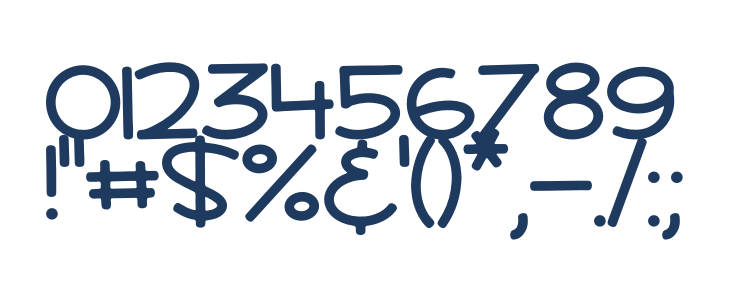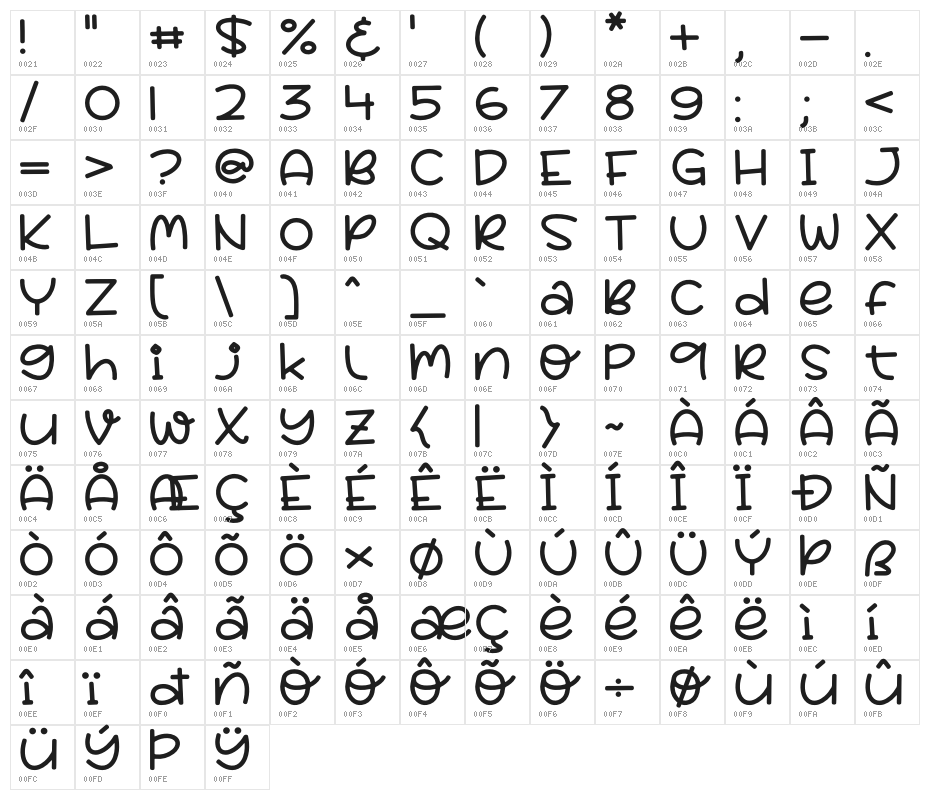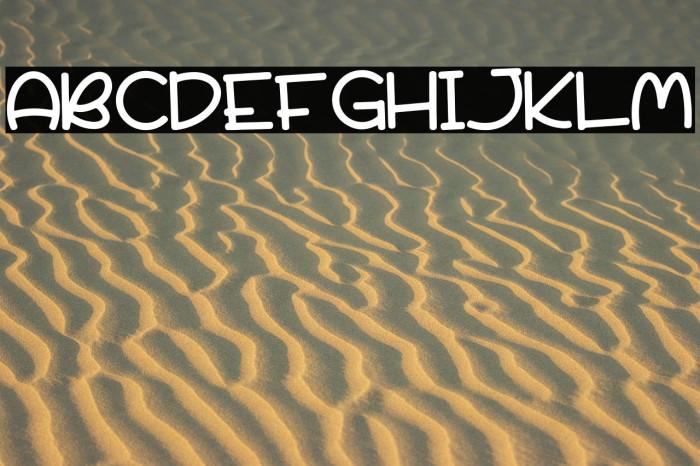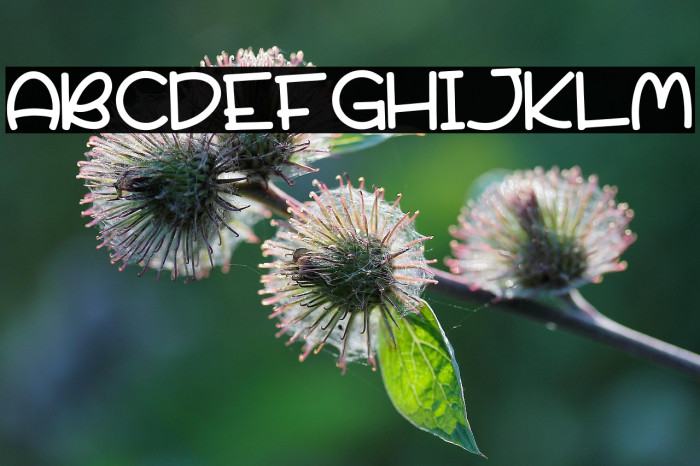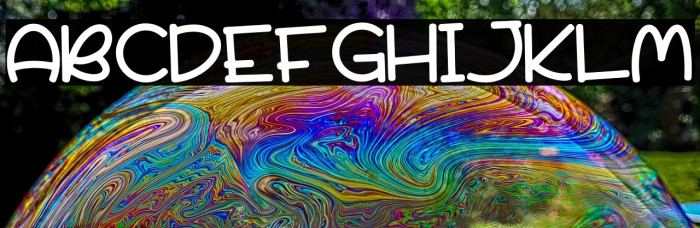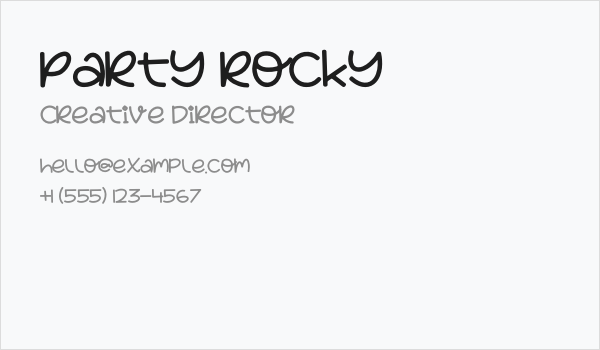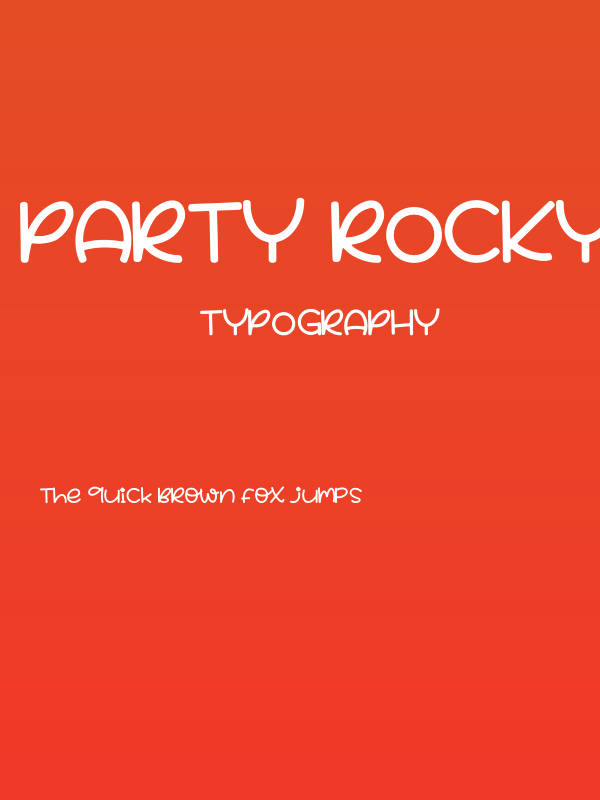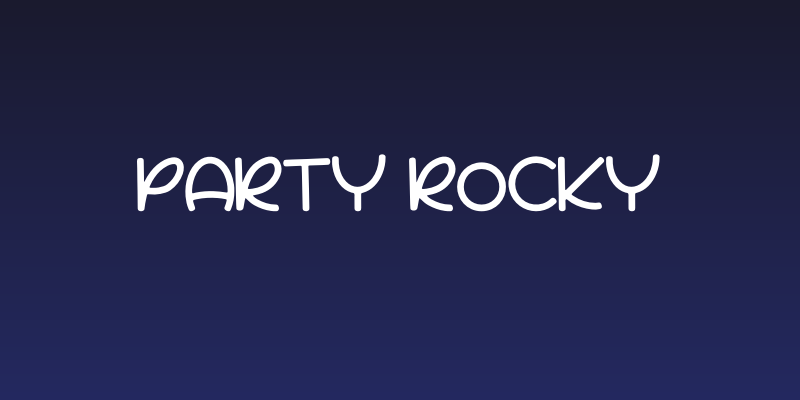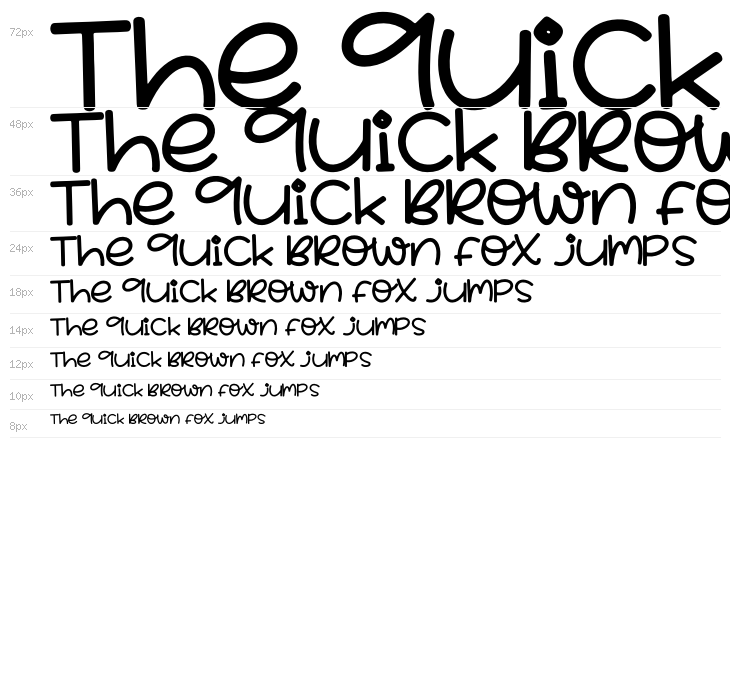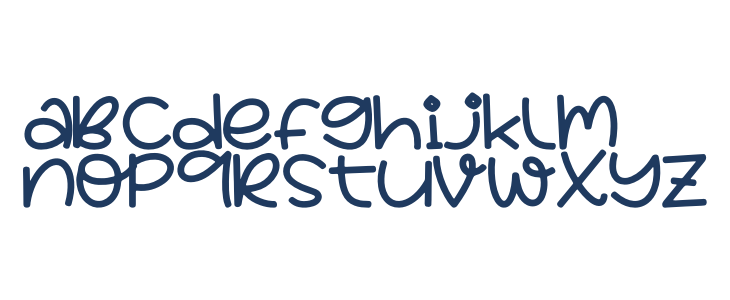
Party Rocky Font
Party Rocky Description
This playful and energetic font features rounded, bubbly characters that convey a sense of fun and spontaneity. The letters are bold and slightly irregular, giving them a hand-drawn appearance that adds to their charm. The uppercase and lowercase letters maintain a consistent style, with smooth curves and a friendly demeanor. Numbers and special characters are equally whimsical, making this font ideal for creative and informal projects. Its unique style is perfect for capturing attention and adding a lively touch to any design.
A playful, bubbly font with a hand-drawn, energetic style from Uncategorized fonts.
- Font: Party Rocky
- Proposed Projects: Ideal for party invitations, children's books, playful branding, and casual social media graphics.
- Overall Style: Playful, Energetic, Casual
- Use Case: Headlines, Logos, Invitations